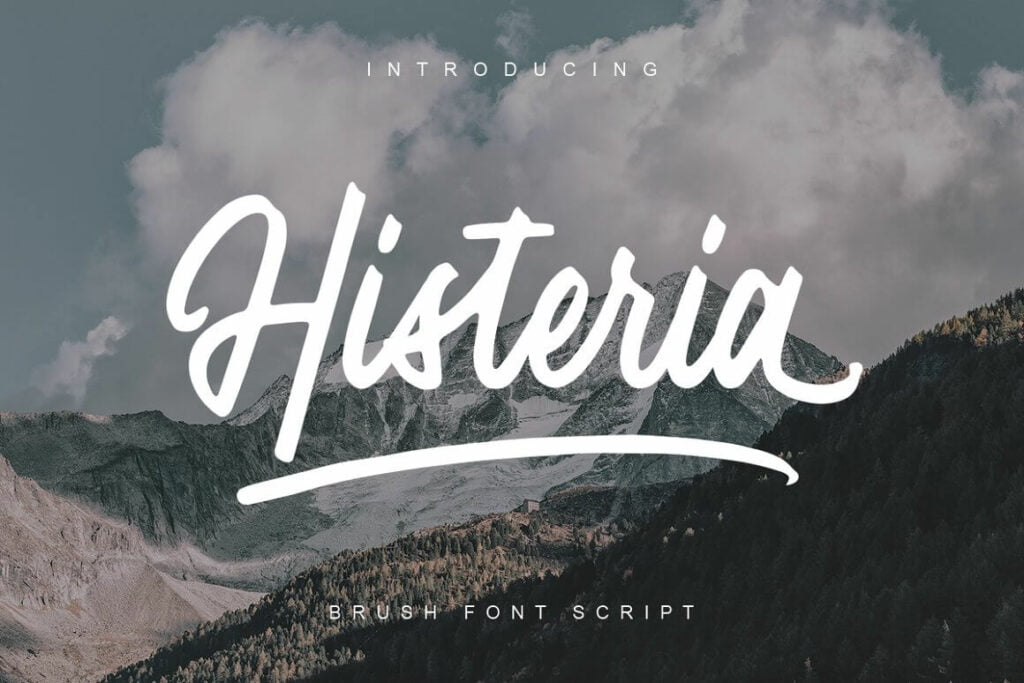
Histeria Brush Font
Histeria Script Font is a type of script brush that is made using a pen brush. there are 2 types of fonts that have a standard model and type slant, so you can use it as a type of logo, badge, packaging, title, poster, t-shirt / shirt, and others. Flowing characters are ideal for making interesting messages, to fit your project.
Hysteria Script also has 3 types of open types that you can use to decorate the letters you will use. there are a number of ligature that support this font to make it more interesting, and swash which is to strengthen the letters when making a logo.
Histeria Script Brush Font